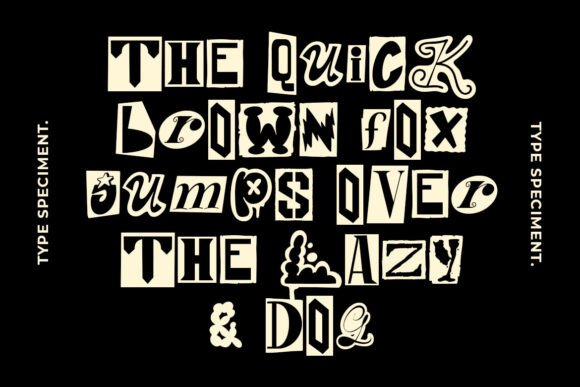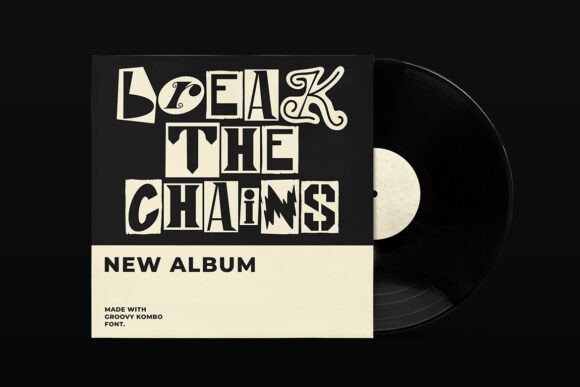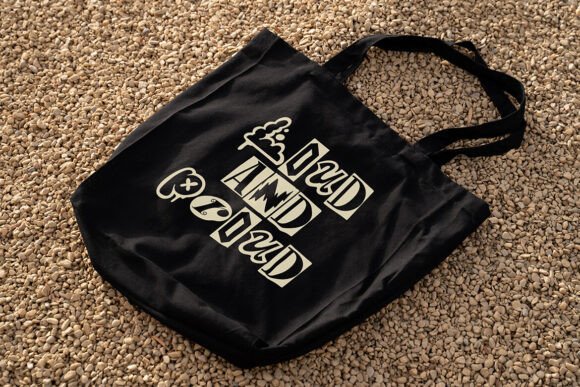
Introduction to Groovy Kombo Font
Groovy Kombo is a bold and striking block display font that combines various styles of block letters.
This unique font offers a mix of different block letter designs, creating a visually dynamic and versatile typeface Whether you’re looking to make a statement or add a modern edge to your designs, Groovy Kombo is the perfect choice.